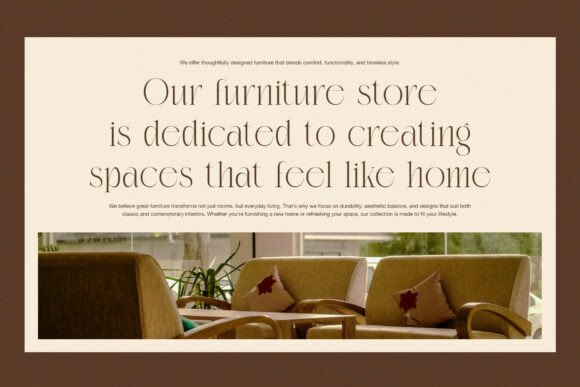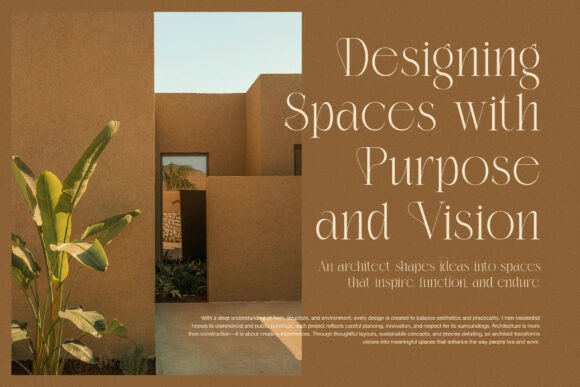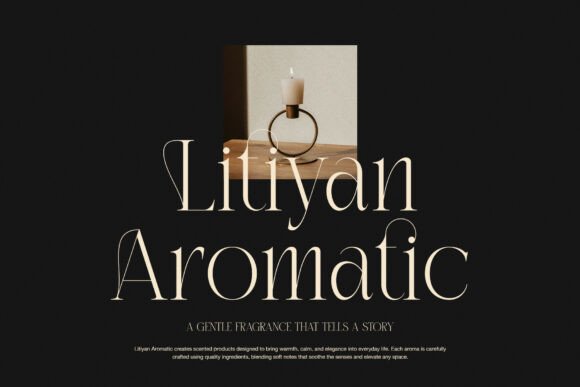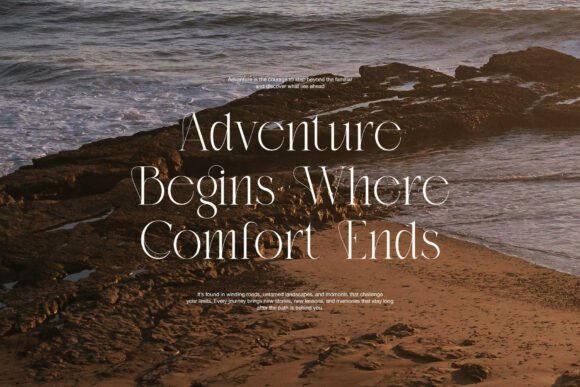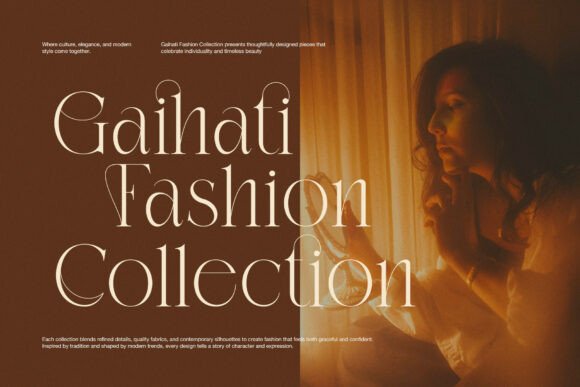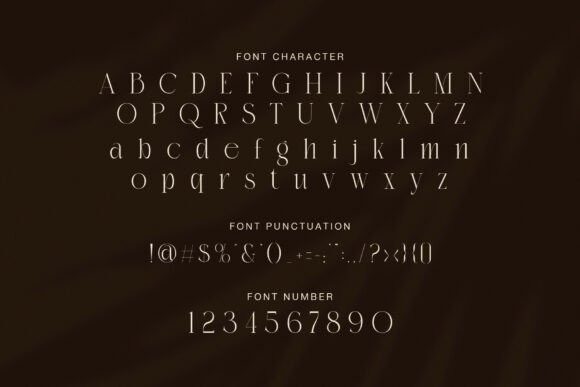
Introducing Bidant Font: The Epitome of Elegance and Clarity
In the world of typography, few fonts manage to strike a balance between classic sophistication and modern warmth. Bidant Font, however, achieves this delicate balance with remarkable finesse. Designed to evoke a sense of calm beauty, balance, and refined clarity, Bidant is an elegant serif font that has captured the hearts of designers and crafters alike.
The Inspiration Behind Bidant
Bidant’s creation was inspired by the timeless appeal of editorial typography and the organic beauty of natural forms. The font’s designer sought to blend the classic structure of serif fonts with the softness of curves and gentle contrast, resulting in a unique and captivating visual identity. This thoughtful approach has enabled Bidant to transcend traditional typographic boundaries, offering a fresh perspective on serif fonts.
Design Characteristics of Bidant
Bidant’s design is characterized by carefully crafted letterforms that exude smoothness and organic elegance. The font features:
- Elegant Serif Structure: Bidant’s serif structure is reminiscent of classic typography, providing a sense of sophistication and refinement.
- Soft Curves and Gentle Contrast: The font’s curves and contrast are expertly balanced, creating a warm and inviting visual experience.
- Timeless Look: Bidant’s design ensures a timeless look that feels both modern and classic, making it suitable for a wide range of applications.
Versatility and Readability
One of Bidant’s standout features is its exceptional readability, which makes it an excellent choice for both print and digital layouts. The font’s carefully crafted letterforms ensure that headlines appear confident yet approachable, while maintaining strong readability even at smaller sizes.
This versatility allows designers to use Bidant for storytelling without visual tension, making it an ideal choice for:
- Print Design: Bidant is perfect for creating elegant and sophisticated print materials, such as brochures, magazines, and books.
- Digital Design: The font’s clarity and readability make it well-suited for digital applications, including websites, blogs, and social media platforms.
Why Designers and Crafters Love Bidant
Bidant has quickly become a favorite among designers and crafters due to its unique combination of elegance, warmth, and versatility. Here are just a few reasons why:
- Unique Visual Identity: Bidant’s distinctive design ensures that projects stand out from the crowd, making it an excellent choice for designers seeking to create a lasting impression.
- Easy to Read: The font’s exceptional readability makes it perfect for creating content that needs to be easily digestible, such as articles, blog posts, and social media updates.
- Flexible: Bidant’s versatility allows it to be used across a wide range of applications, from print and digital design to branding and advertising.
Bidant Font is an exceptional addition to any designer’s toolkit. Its elegant serif structure, soft curves, and gentle contrast create a timeless look that feels both modern and classic. With its exceptional readability and versatility, Bidant is perfect for a wide range of applications, from print and digital design to branding and advertising. Whether you’re a designer, crafter, or simply someone who appreciates beautiful typography, Bidant is sure to captivate and inspire.